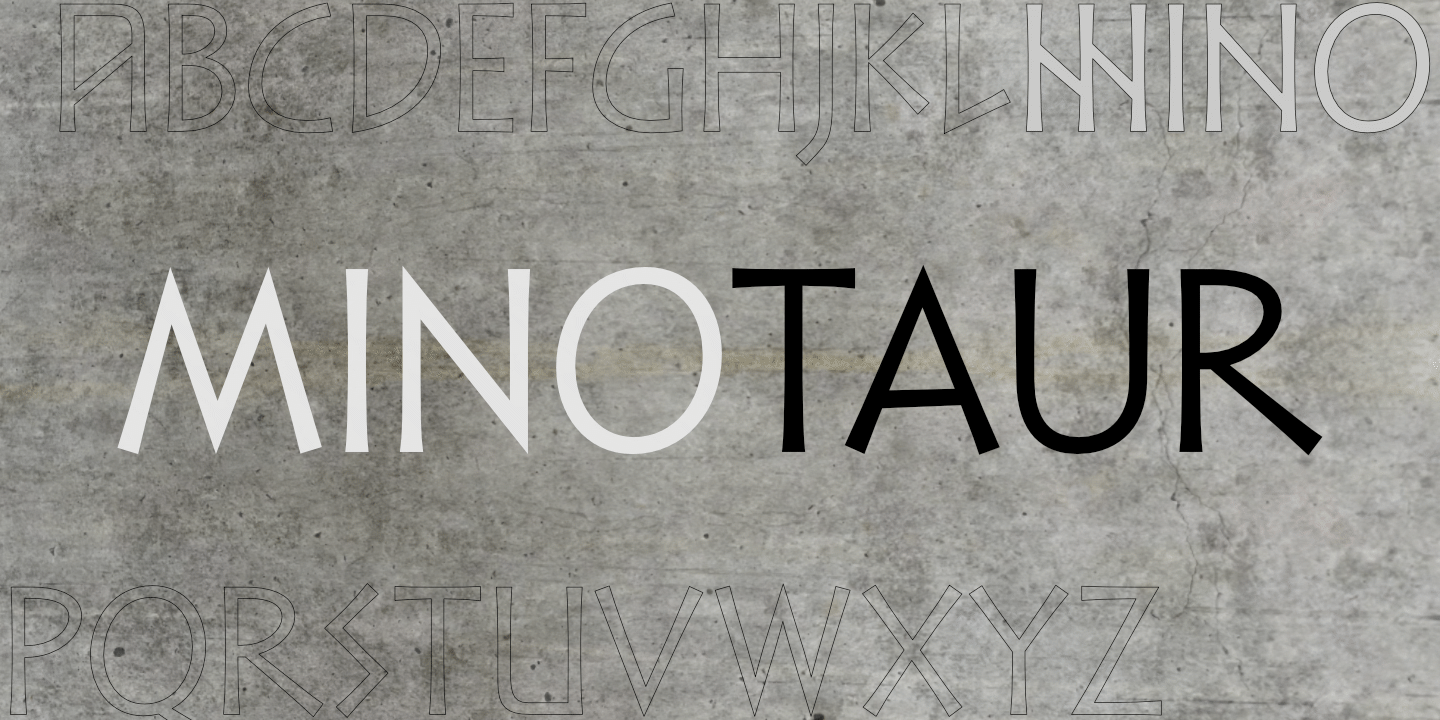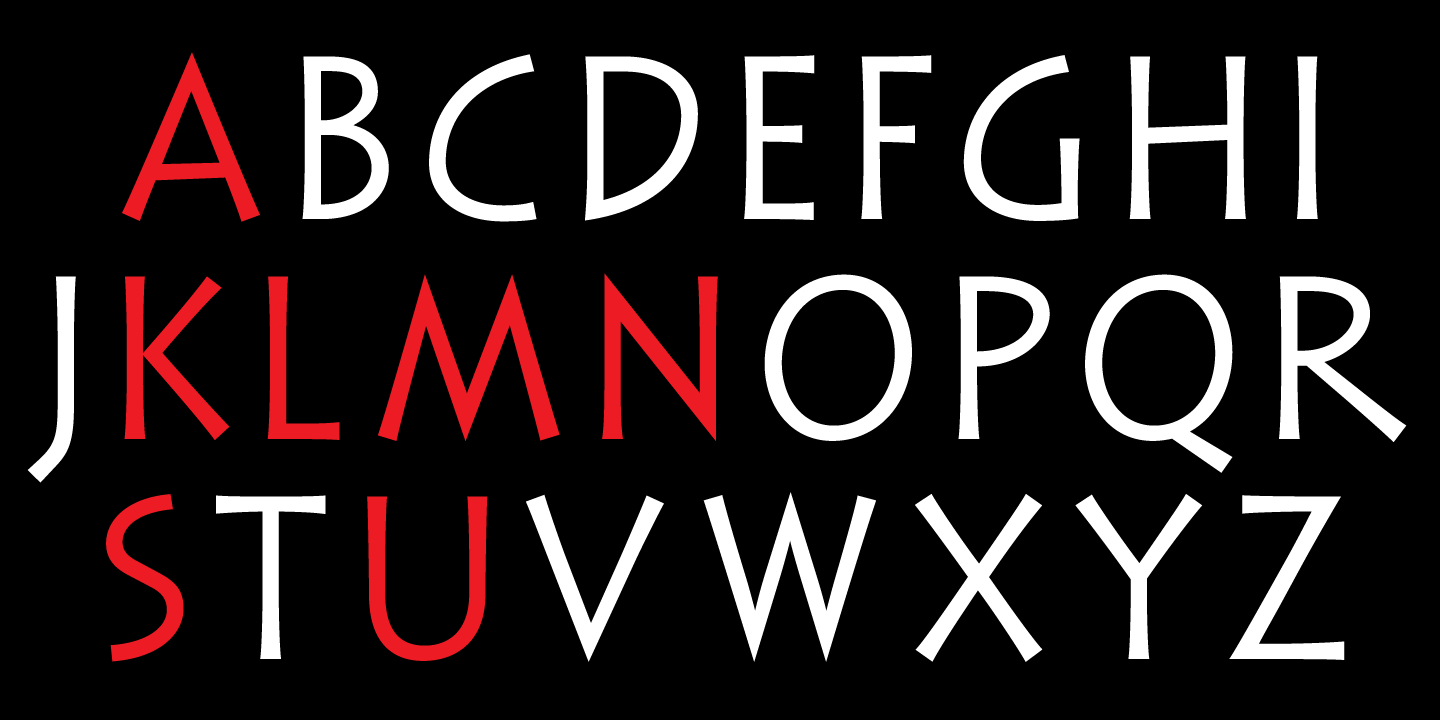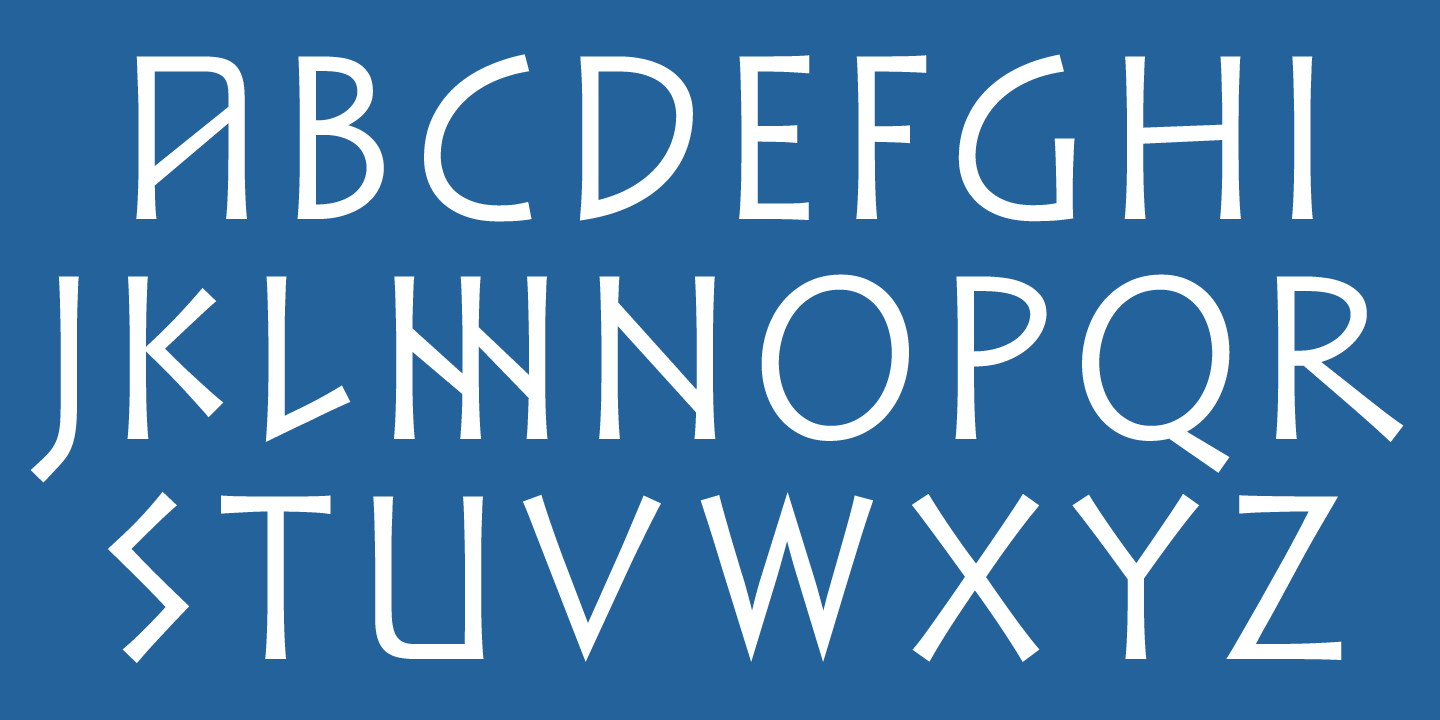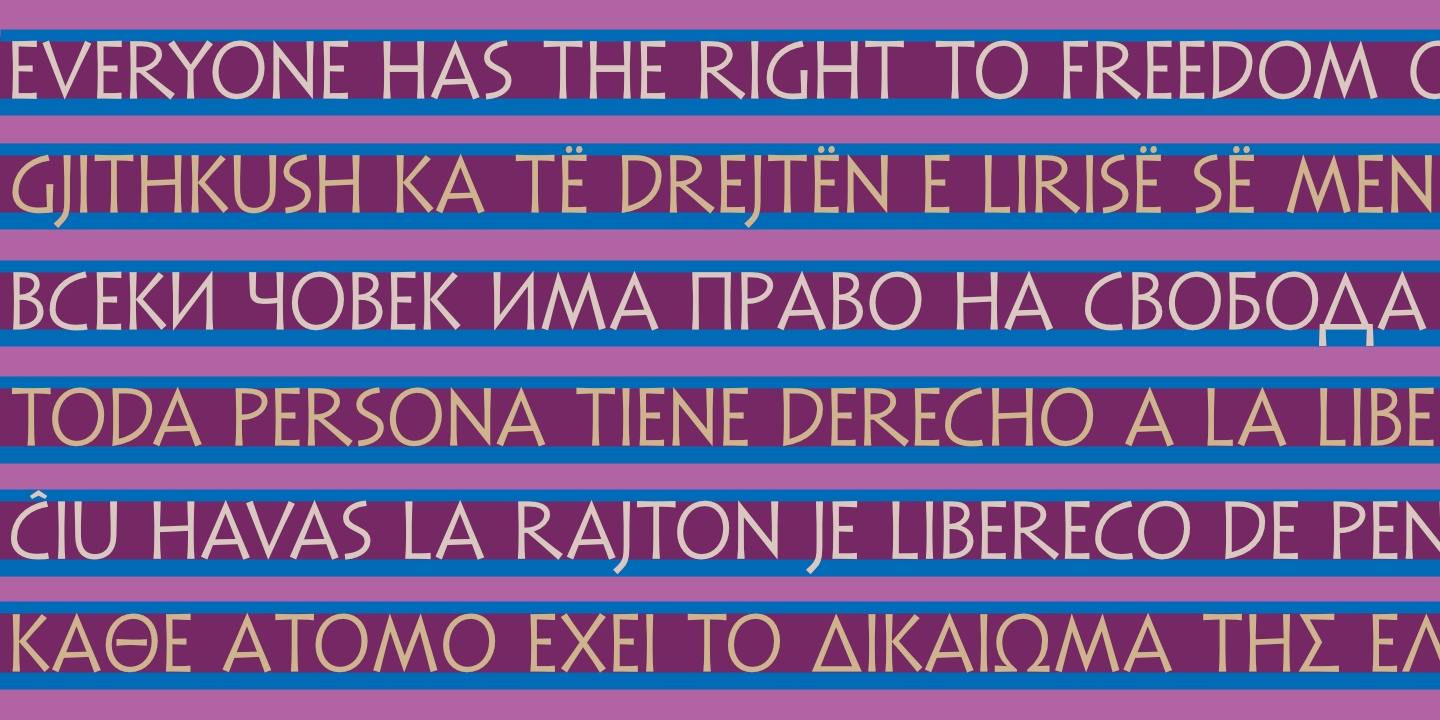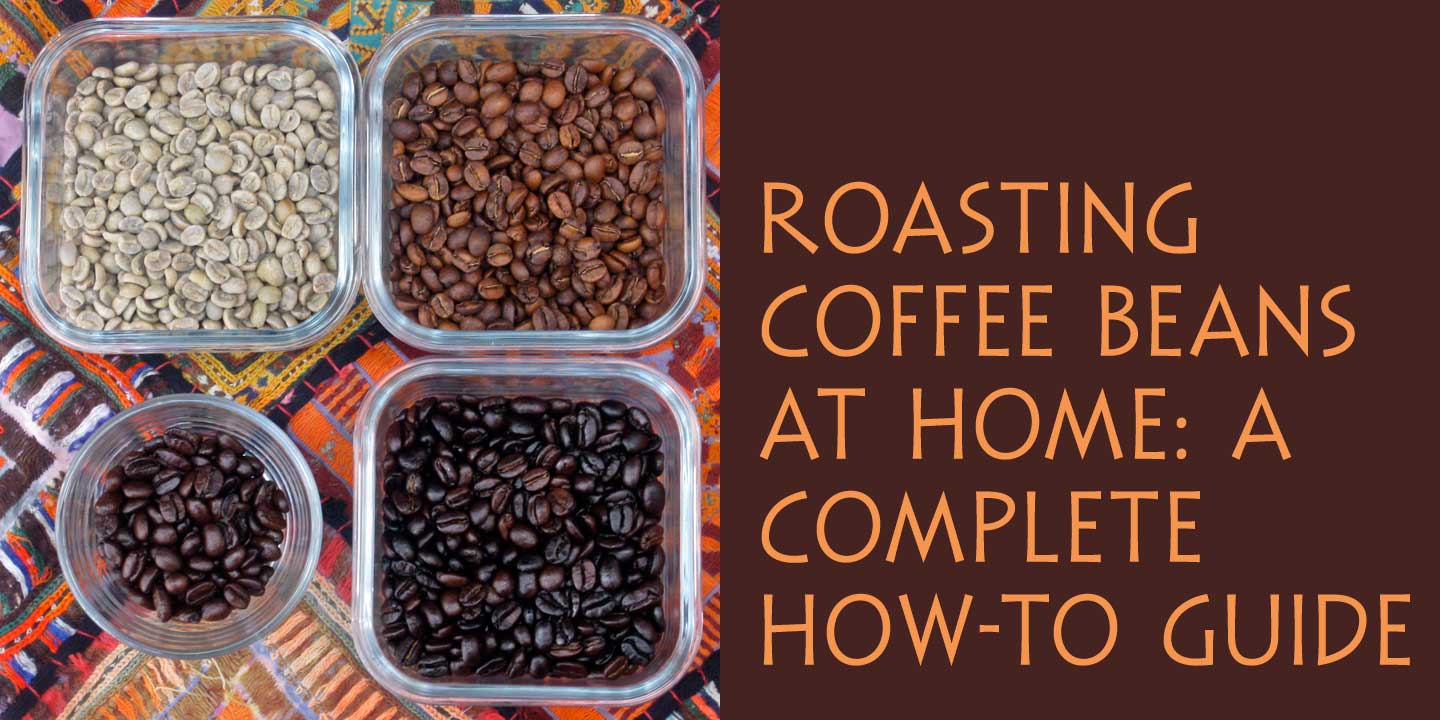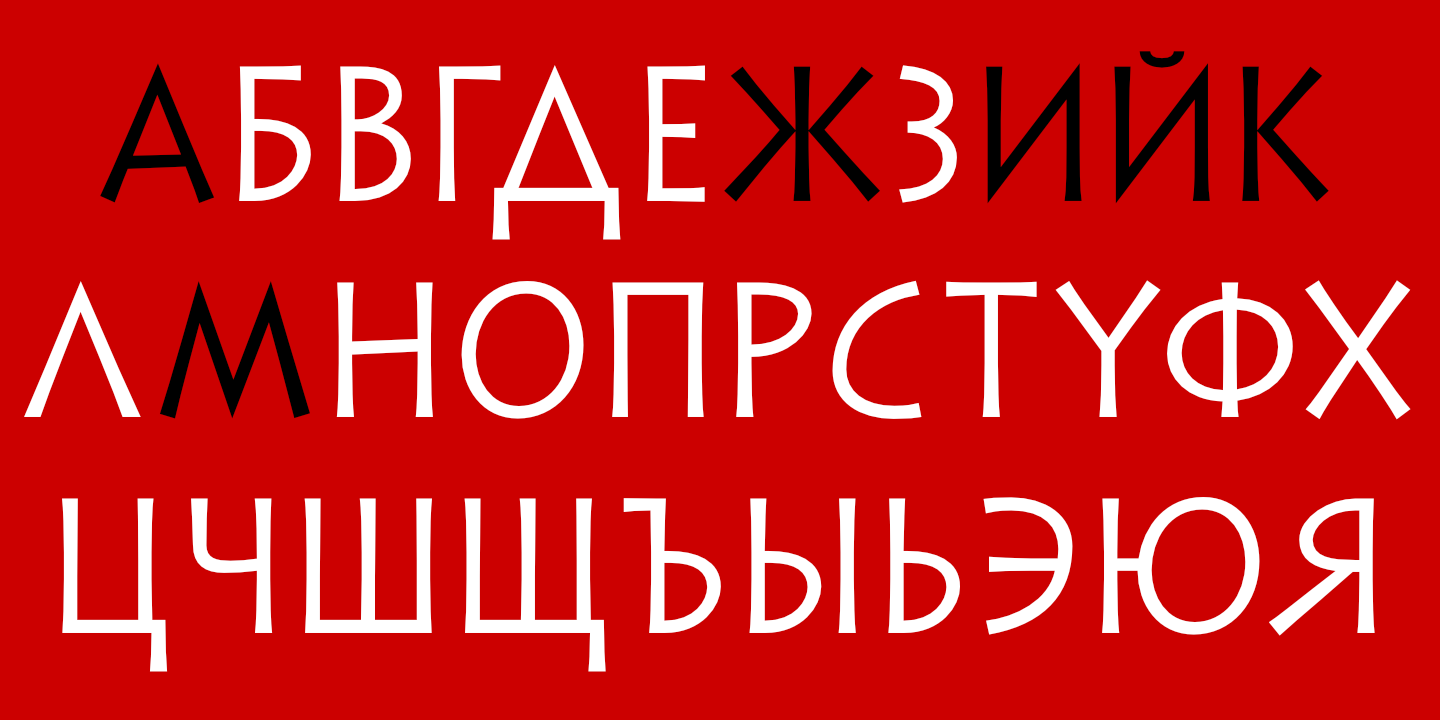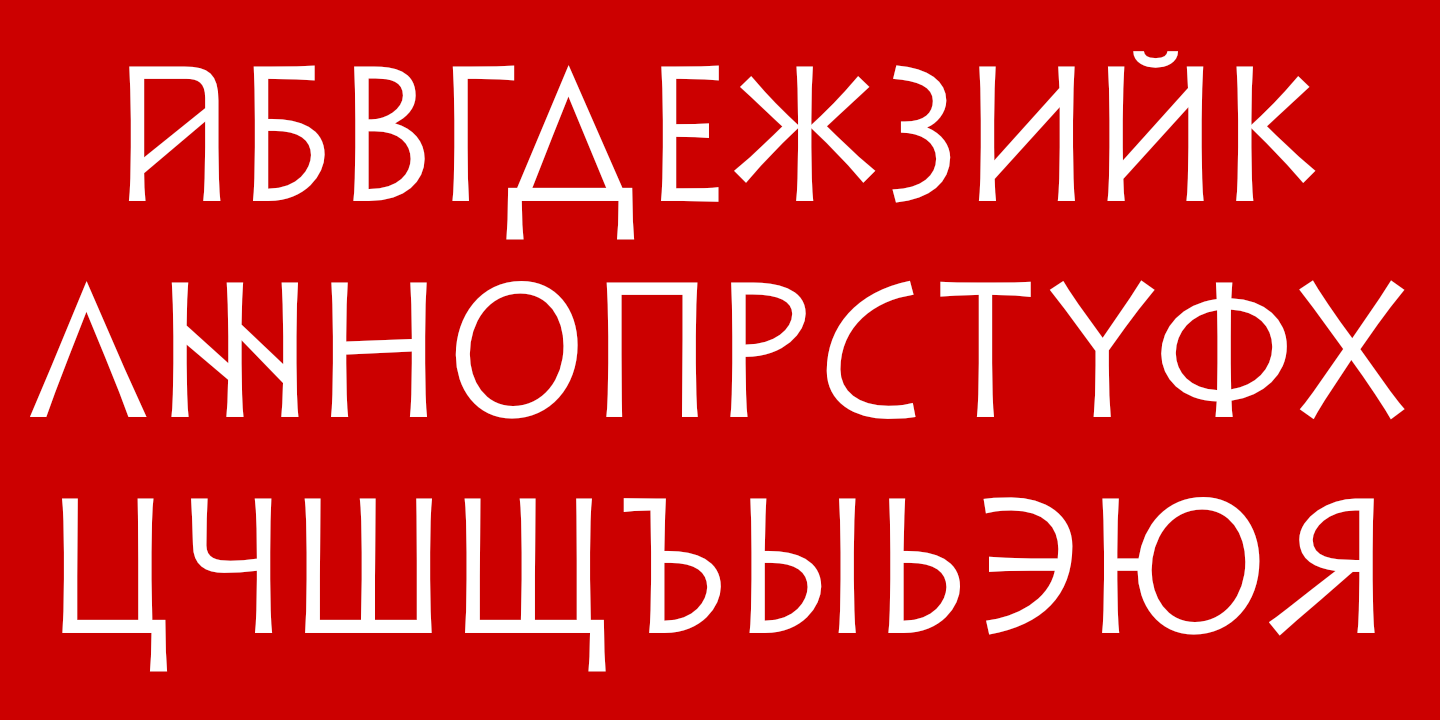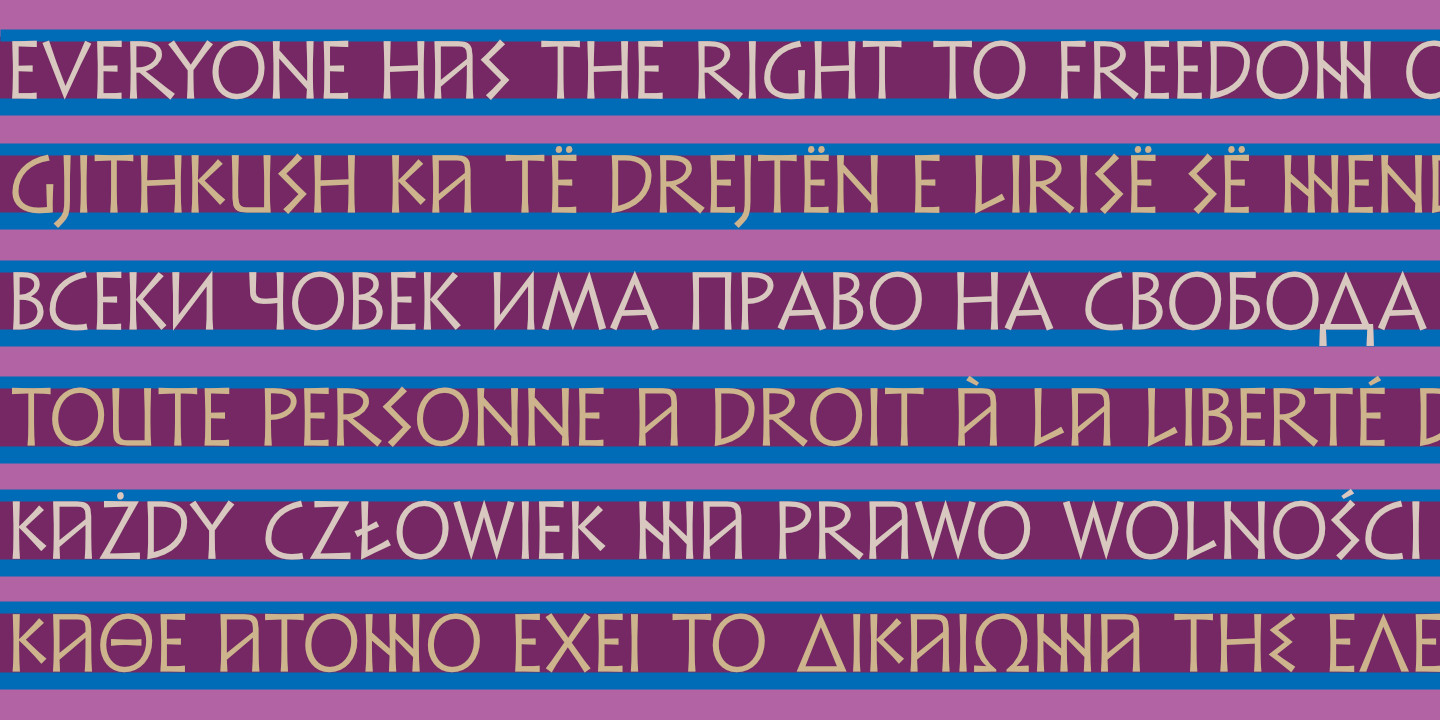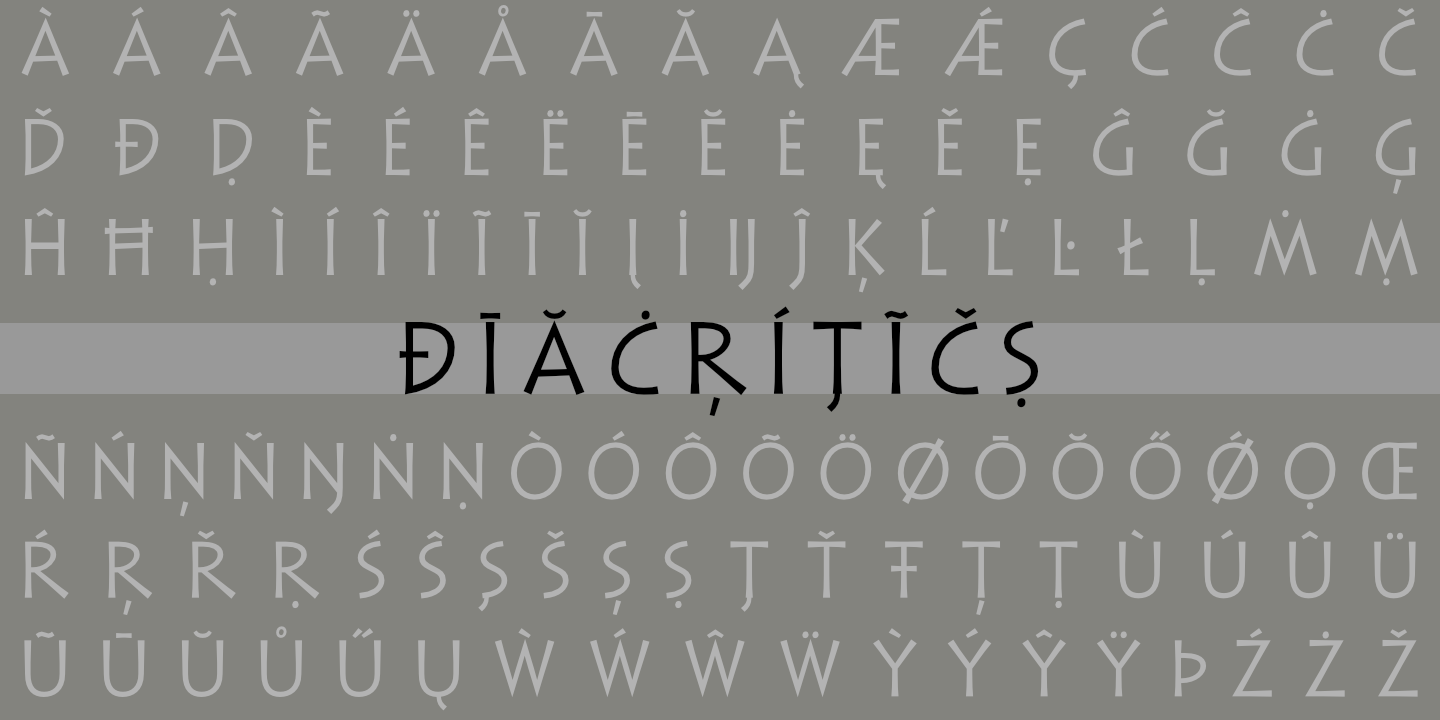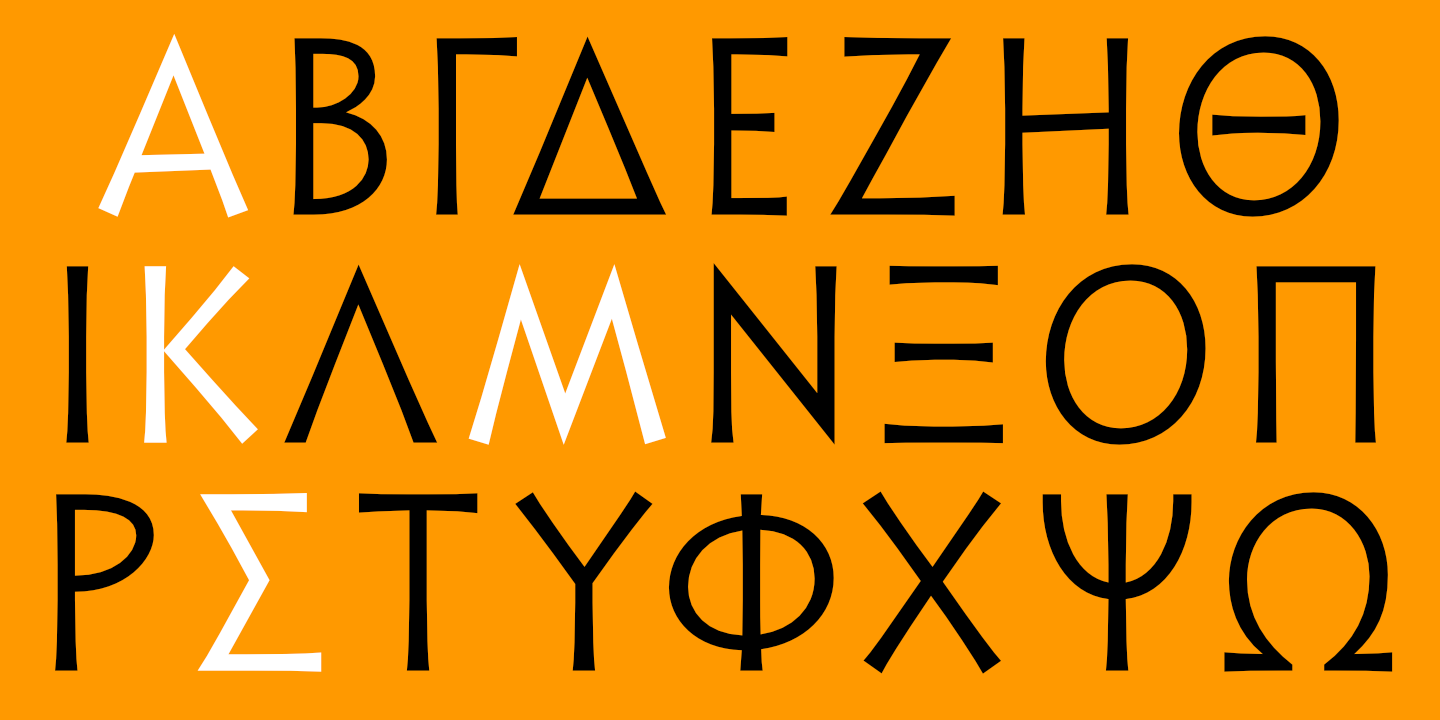
Minotaur: Basic Latin alphabet (default). Minotaur supports most European languages. See Glyphs for details.
For a more modern look, Minotaur includes Stylistic Alternates (in red).
Minotaur supports most languages that use the Cyrillic alphabet. See Glyphs for details.
Minotaur: Cyrillic alphabet with stylistic alternates (in black). See Glyphs for details.
Minotaur supports modern Greek. See Glyphs for details.
Minotaur: Greek alphabet with stylistic alternates (in white). See Glyphs for details.
Minotaur: Numerals, basic punctuation, currency symbols, and a sampling of ornaments.
Minotaur supports most European languages.